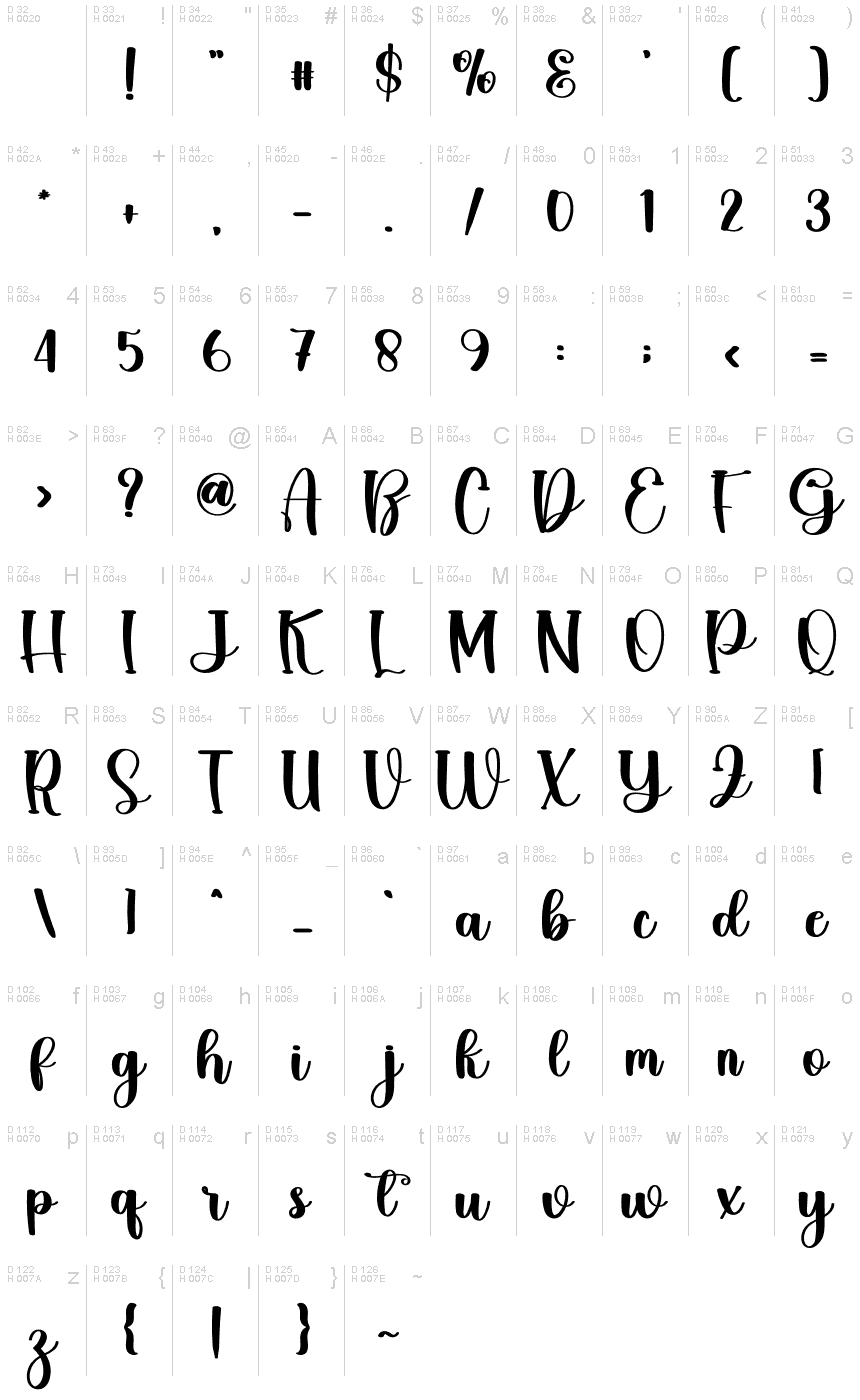
Hotel
Hotel, a captivating handwritten font by FreshtypeINK, exudes an artistic allure that adds a touch of elegance to any project. Its semi-bold weight effortlessly balances readability and style, making it perfect for various creative ventures. Embrace its charm in your fashion lookbooks, wedding invitations, or food menus to evoke sophistication and grace. Use Hotel to infuse warmth into your travel brochures, capturing the wanderlust spirit with its handwritten authenticity. With its versatility and unique personality, this font will elevate your designs and leave a lasting impression on your audience.